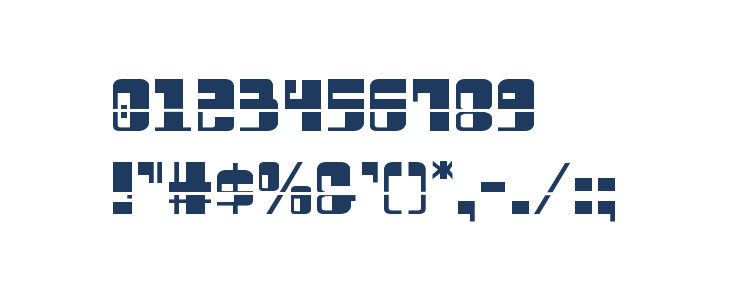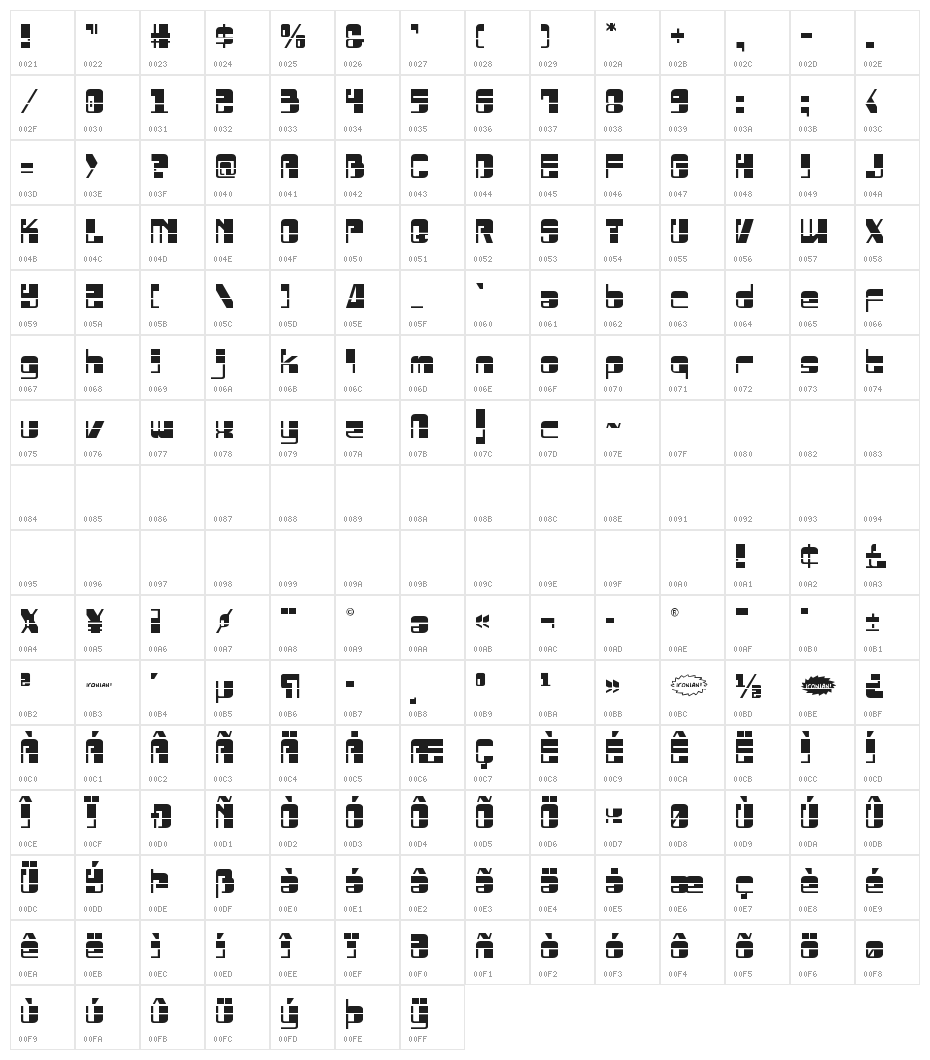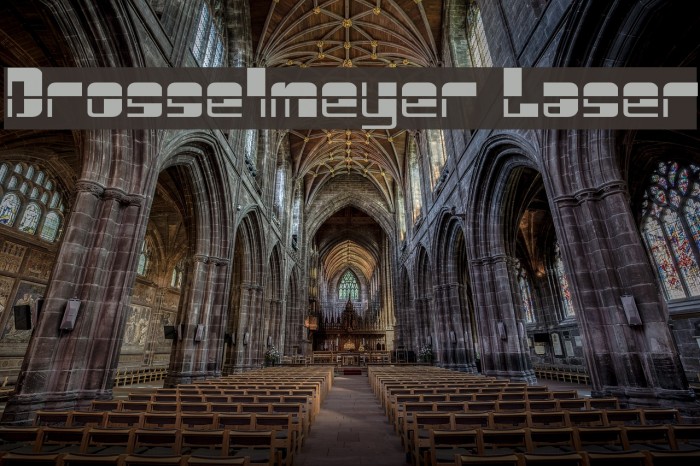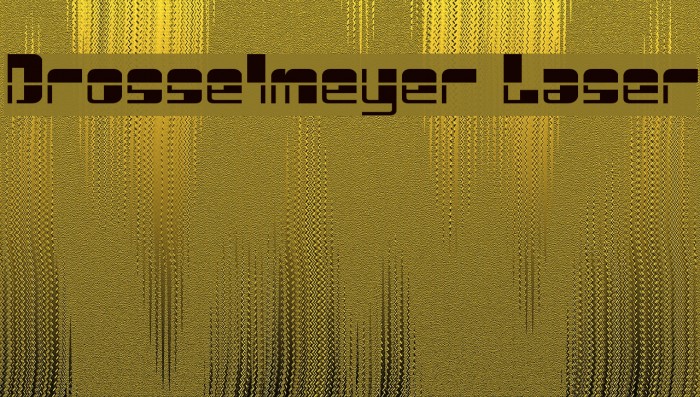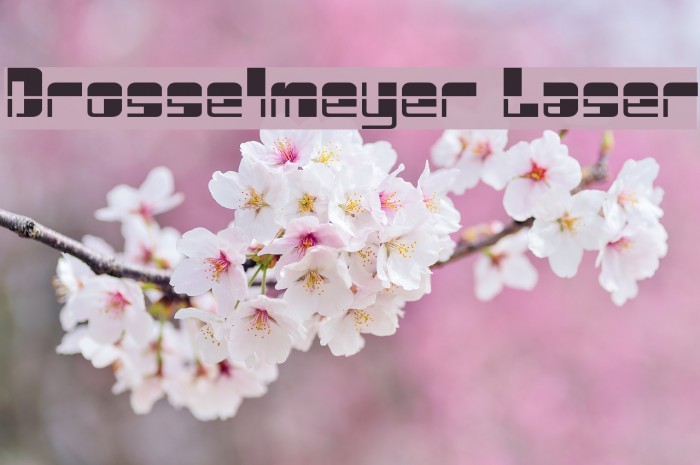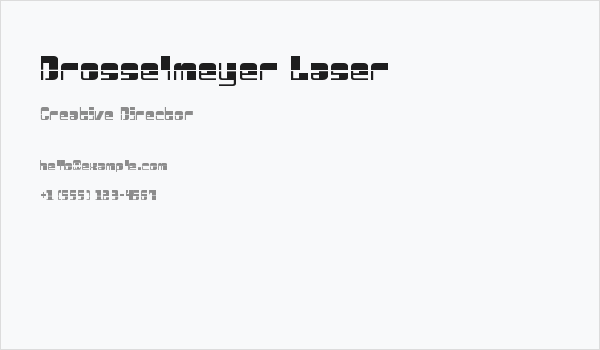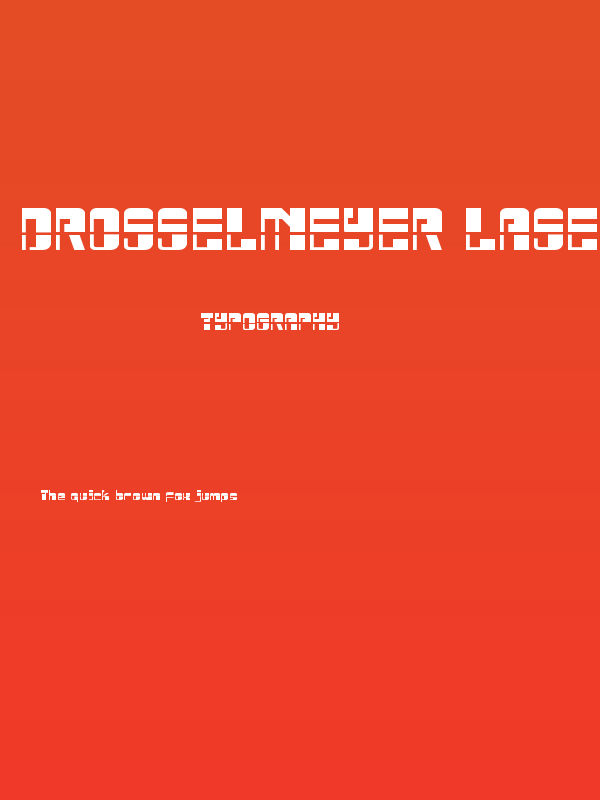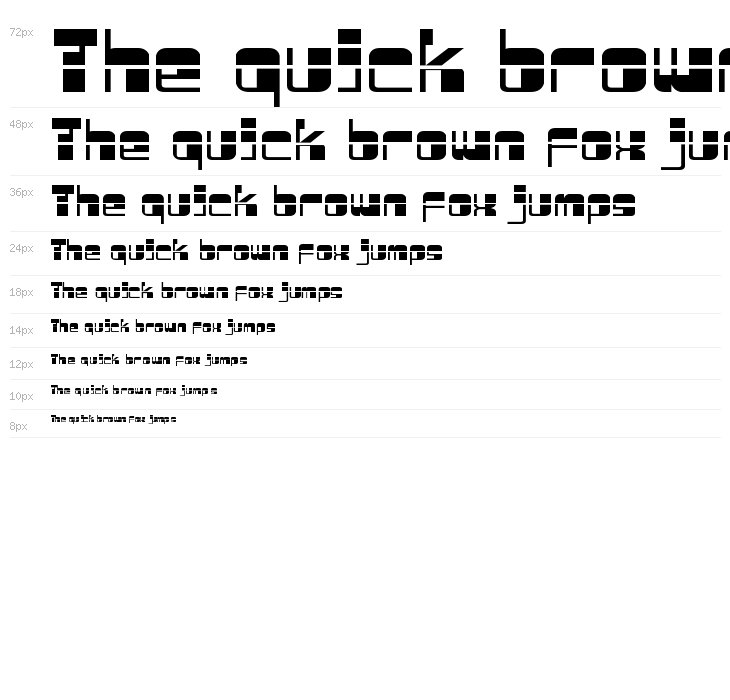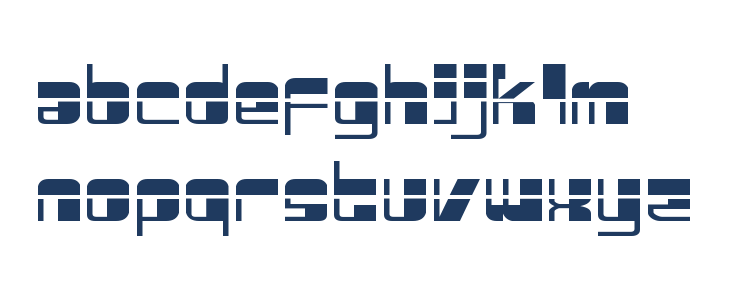
Drosselmeyer Laser Font
Drosselmeyer Laser Description
This font features a futuristic and geometric design with a distinct stencil-like appearance. The characters are bold and angular, with sharp edges and a blocky structure that creates a sense of modernity and innovation. The uppercase and lowercase letters maintain a consistent style, with some characters incorporating unique cutouts and breaks that add to the font's industrial aesthetic. The numerals are equally bold and follow the same geometric pattern, ensuring uniformity across all characters. Special characters are designed with the same attention to detail, making this font suitable for a variety of creative applications.